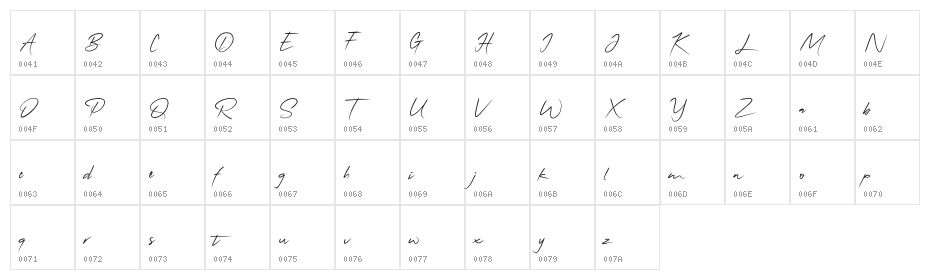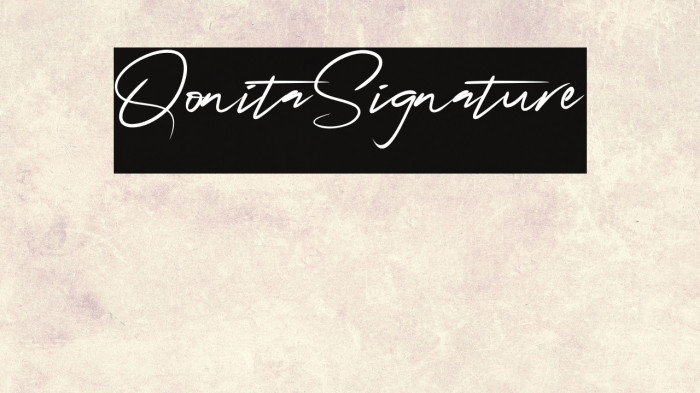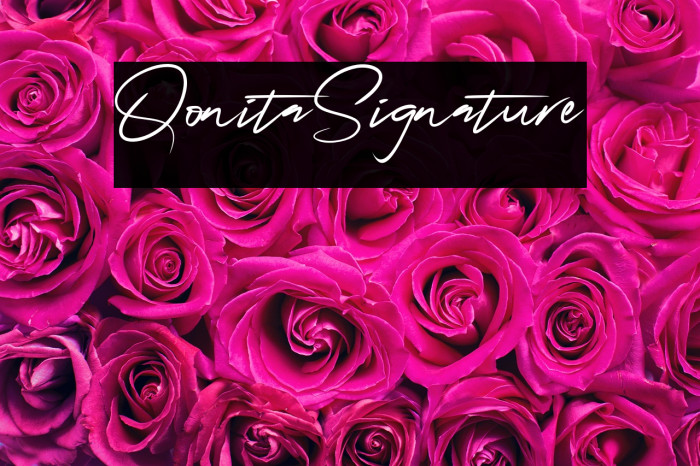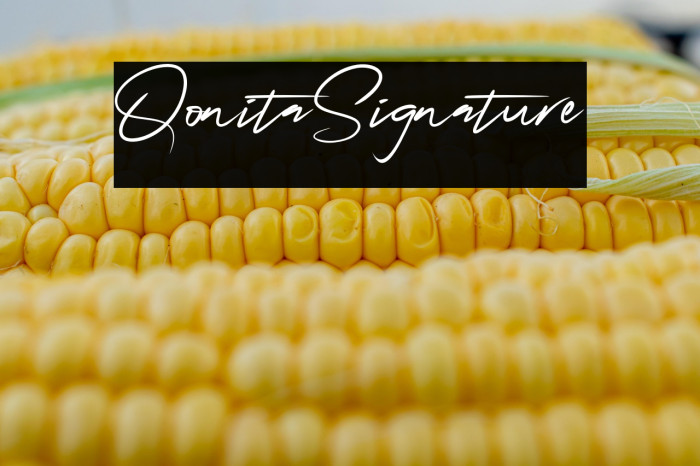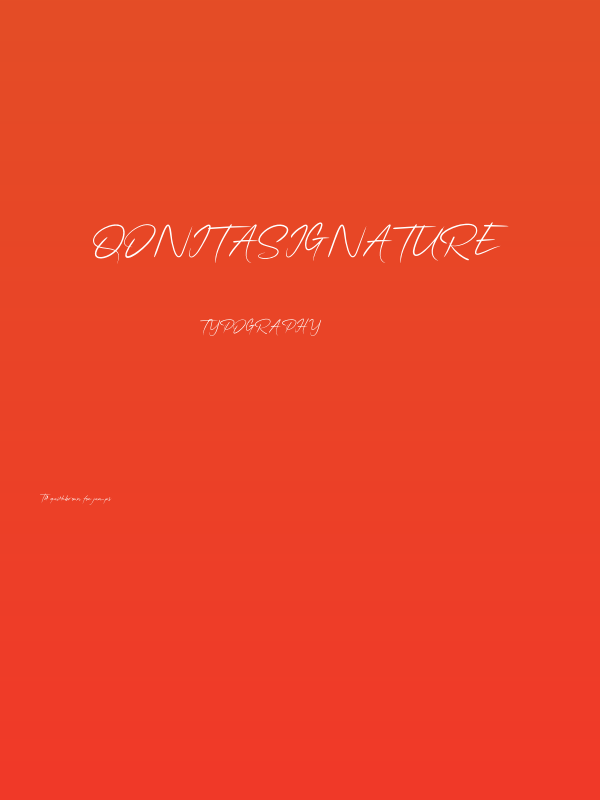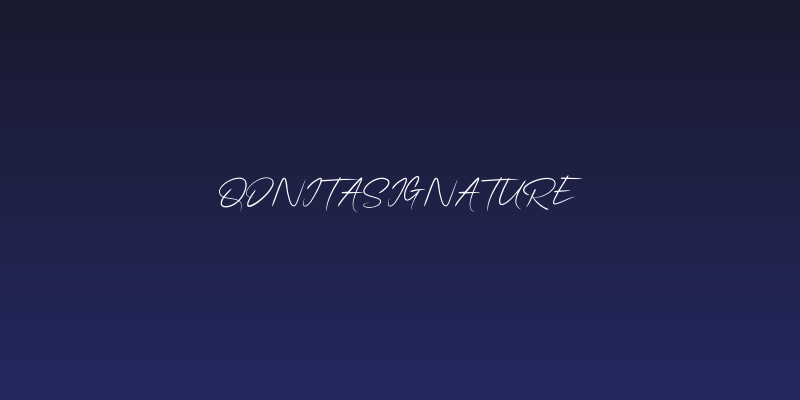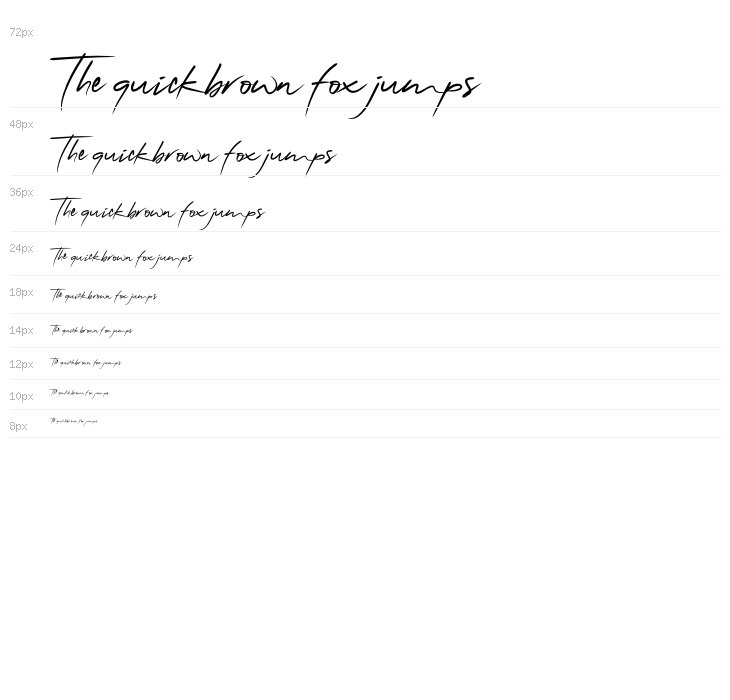
QonitaSignature Font
QonitaSignature Description
This elegant script font features fluid, cursive strokes that mimic the natural flow of handwriting. The uppercase letters are slightly elongated with graceful curves, while the lowercase letters maintain a consistent, flowing baseline. The font exudes a sense of sophistication and personal touch, making it ideal for projects that require a handwritten aesthetic. The characters are well-spaced, providing a balanced and airy appearance. The absence of special characters suggests a focus on simplicity and elegance.
| Overall Style | Elegant, Handwritten |
| Proposed Projects | Ideal for wedding invitations, personal branding, greeting cards, and elegant logo designs. |